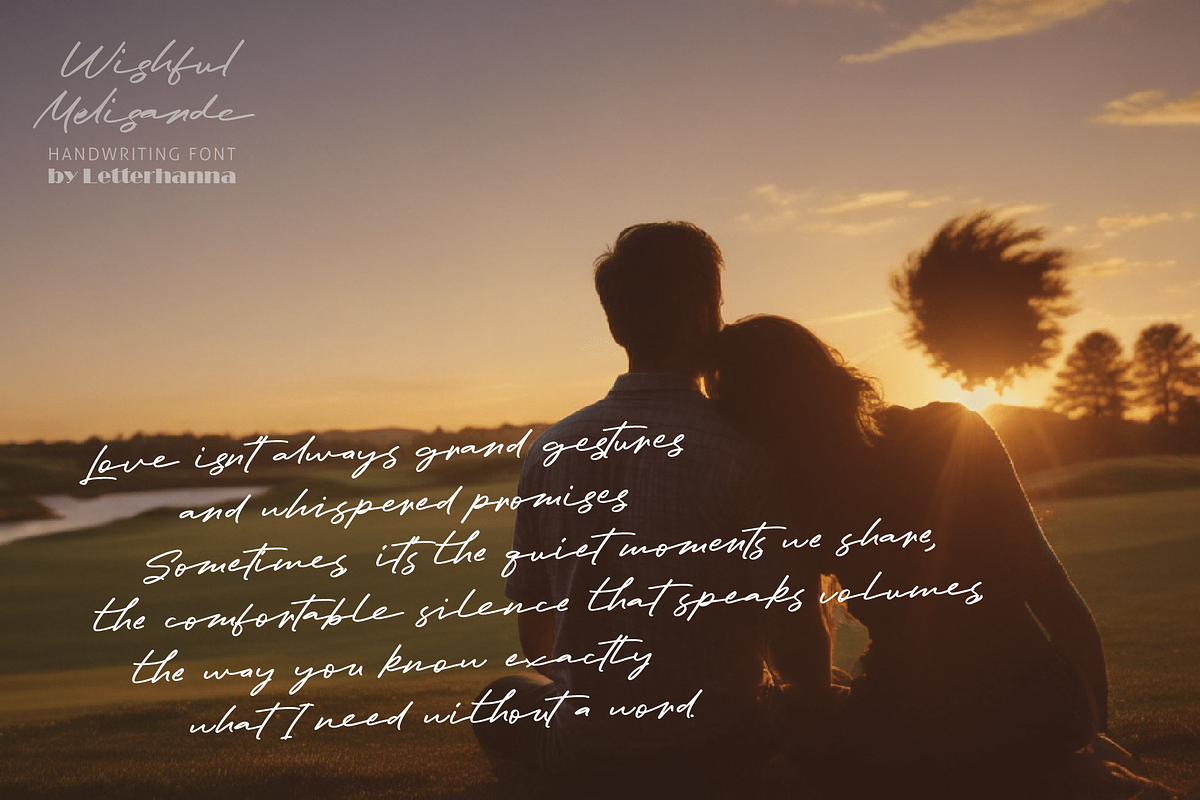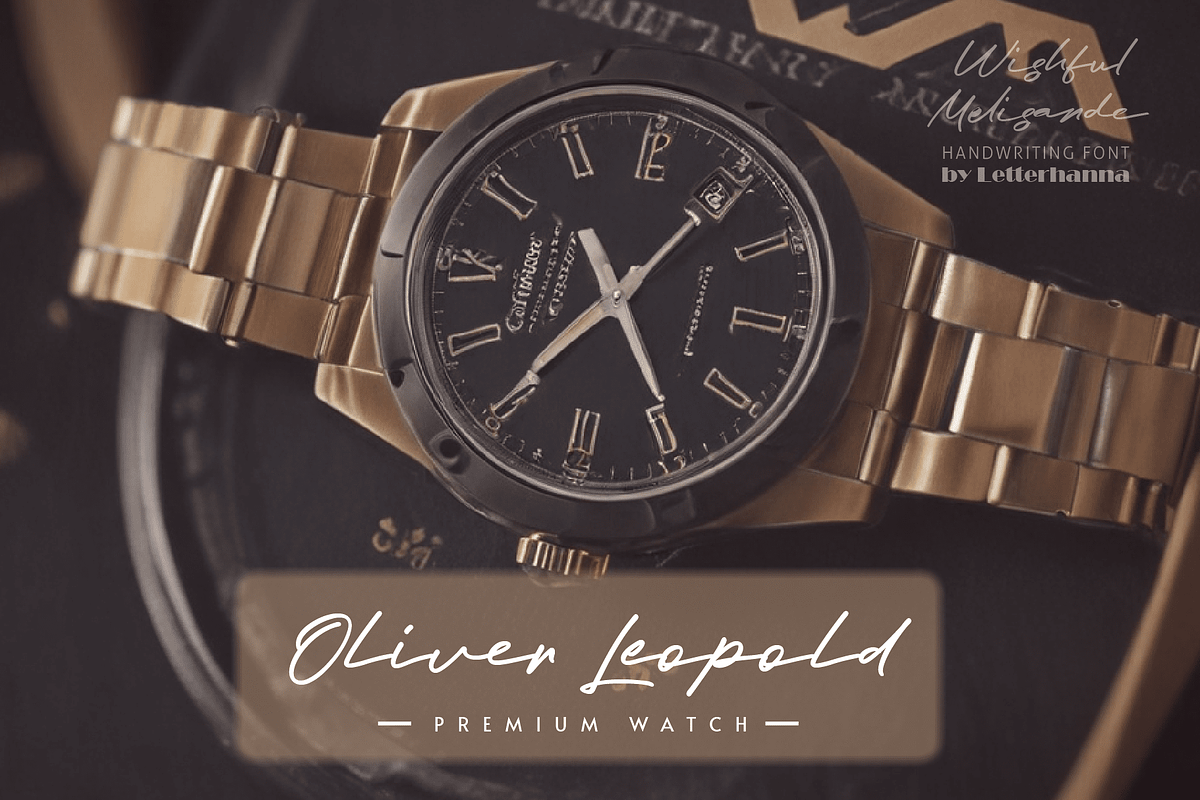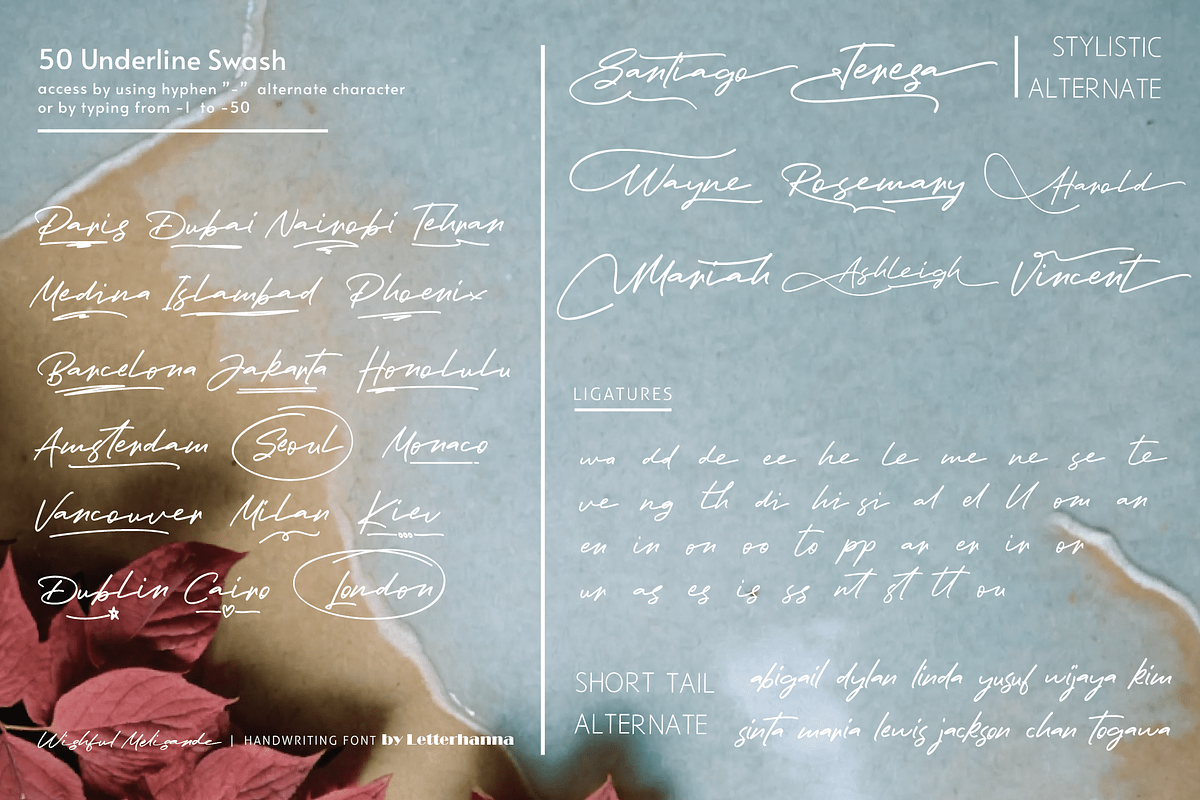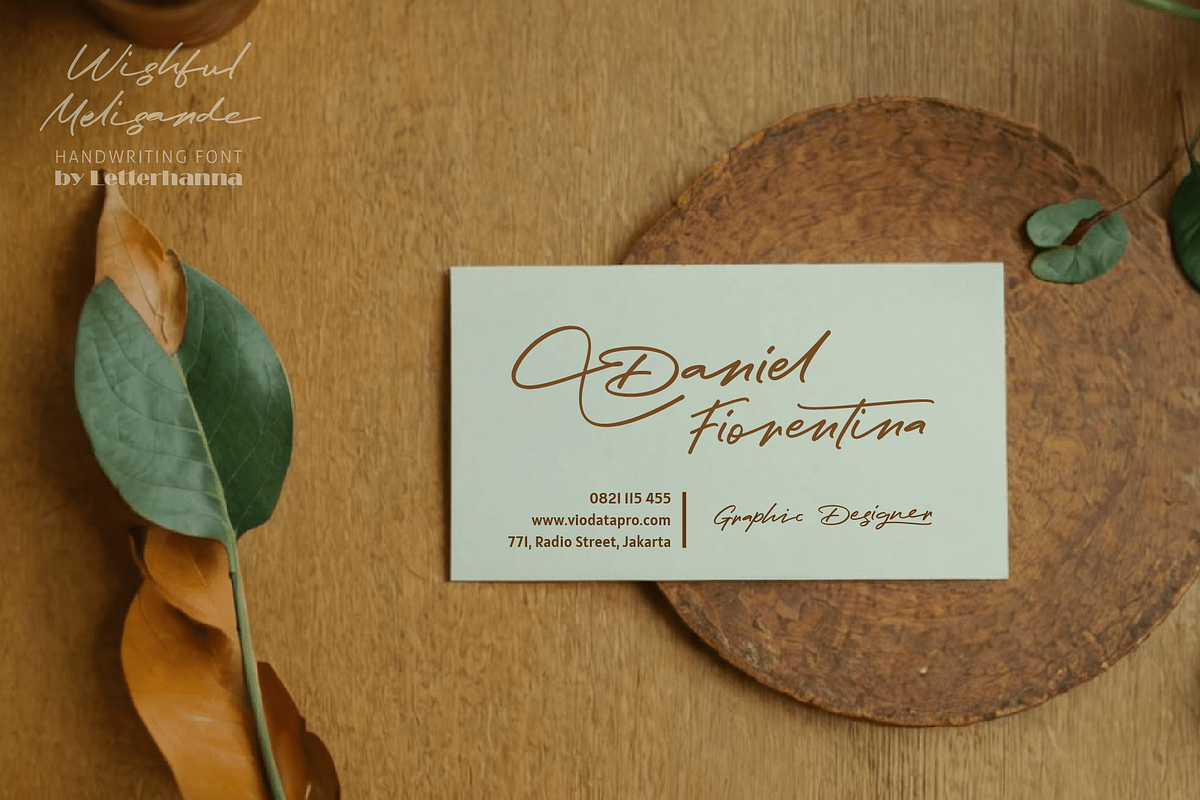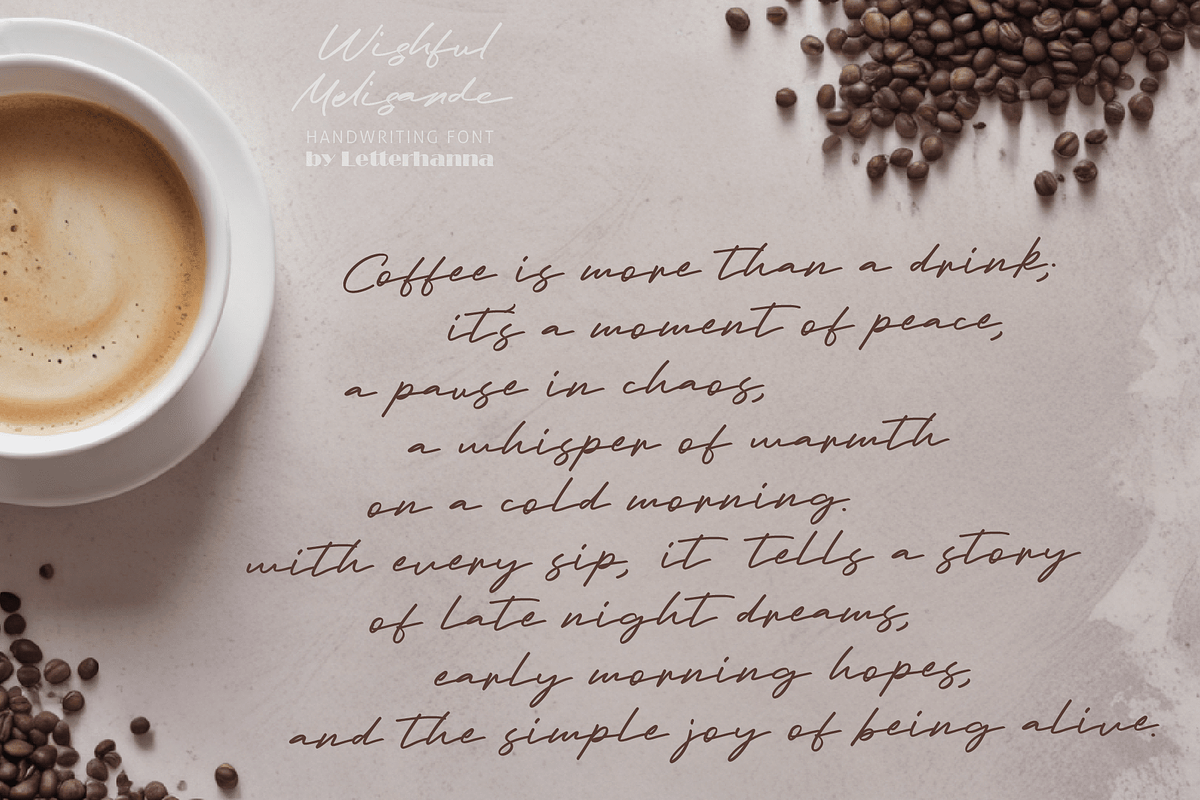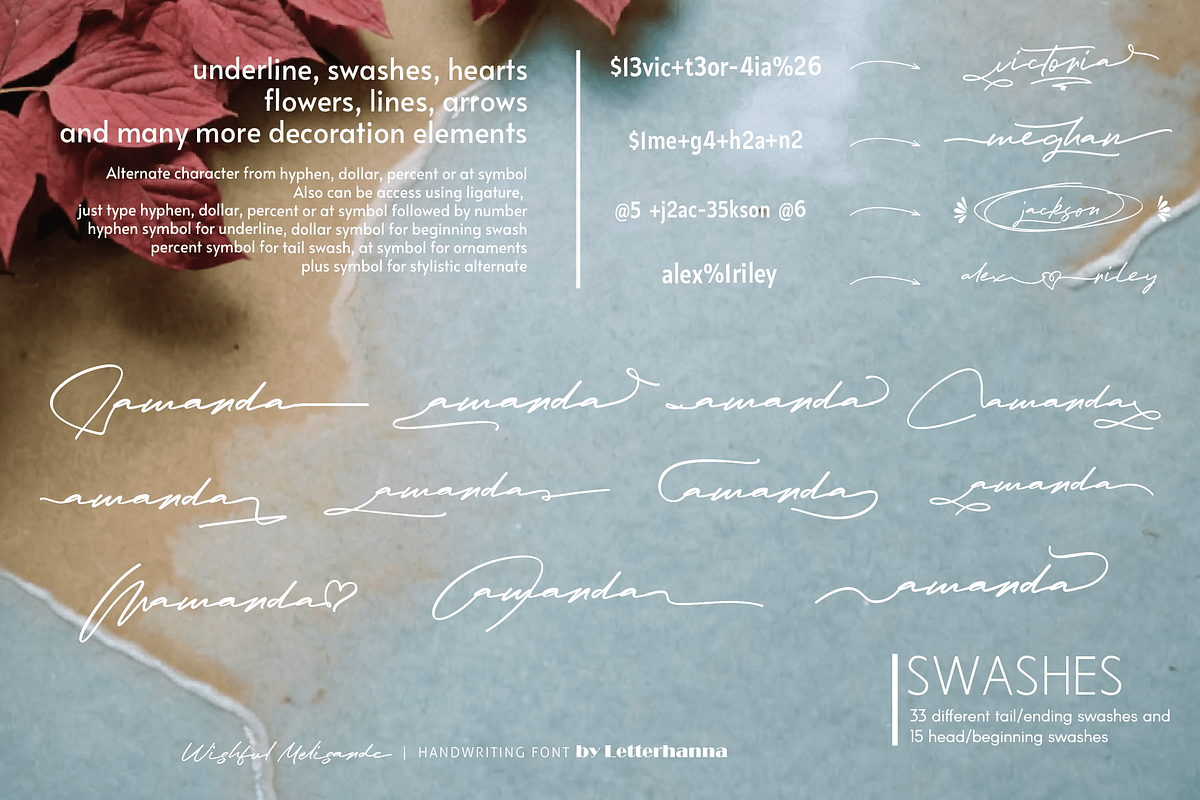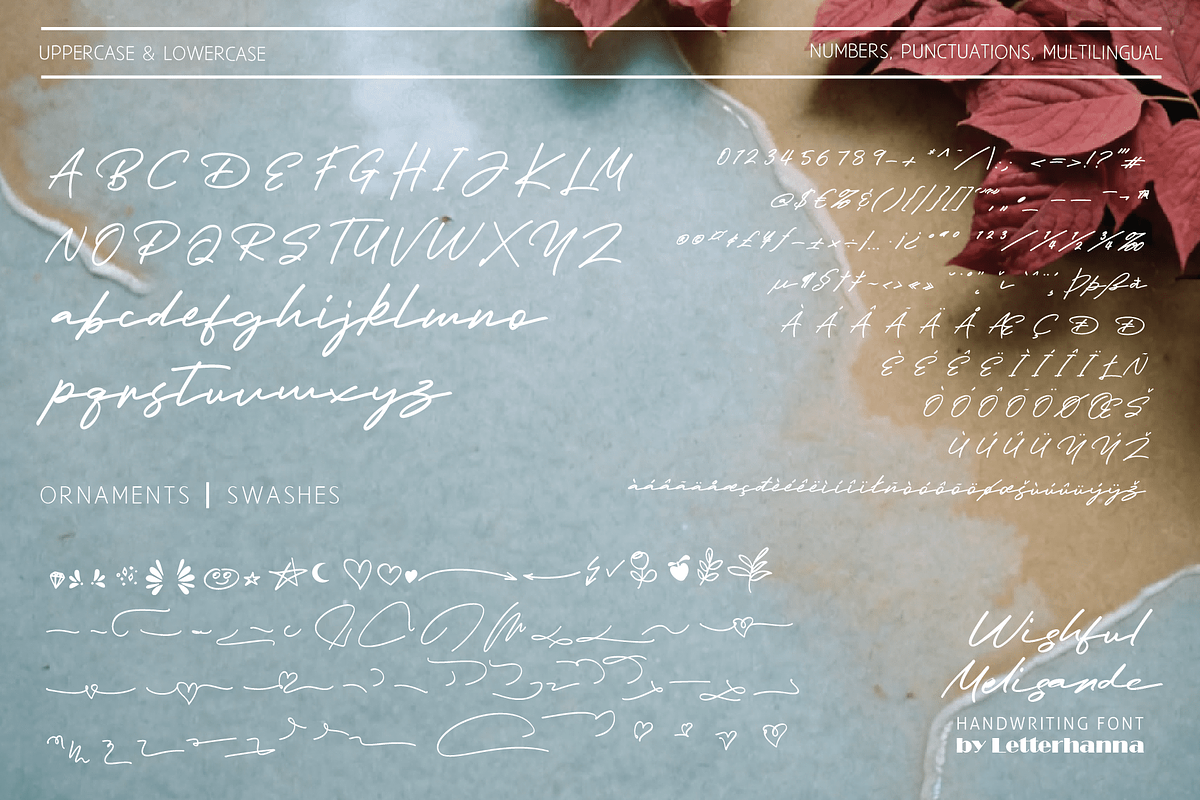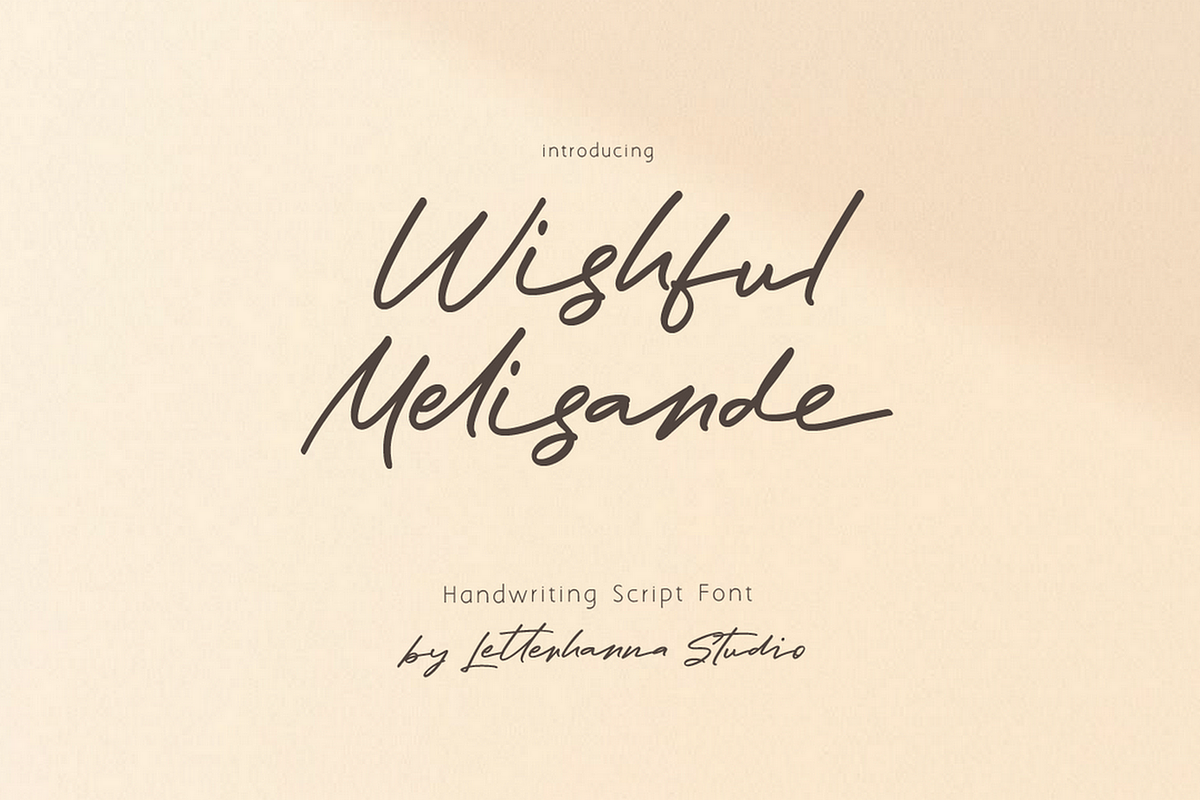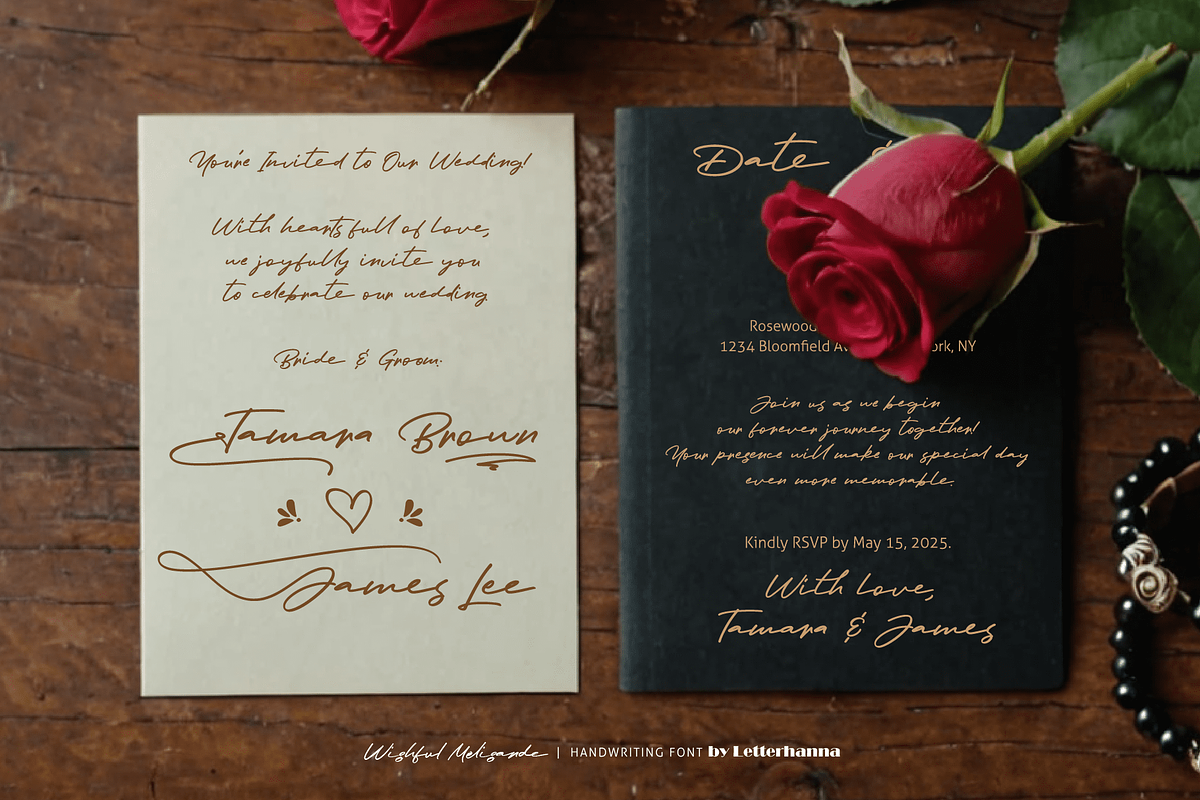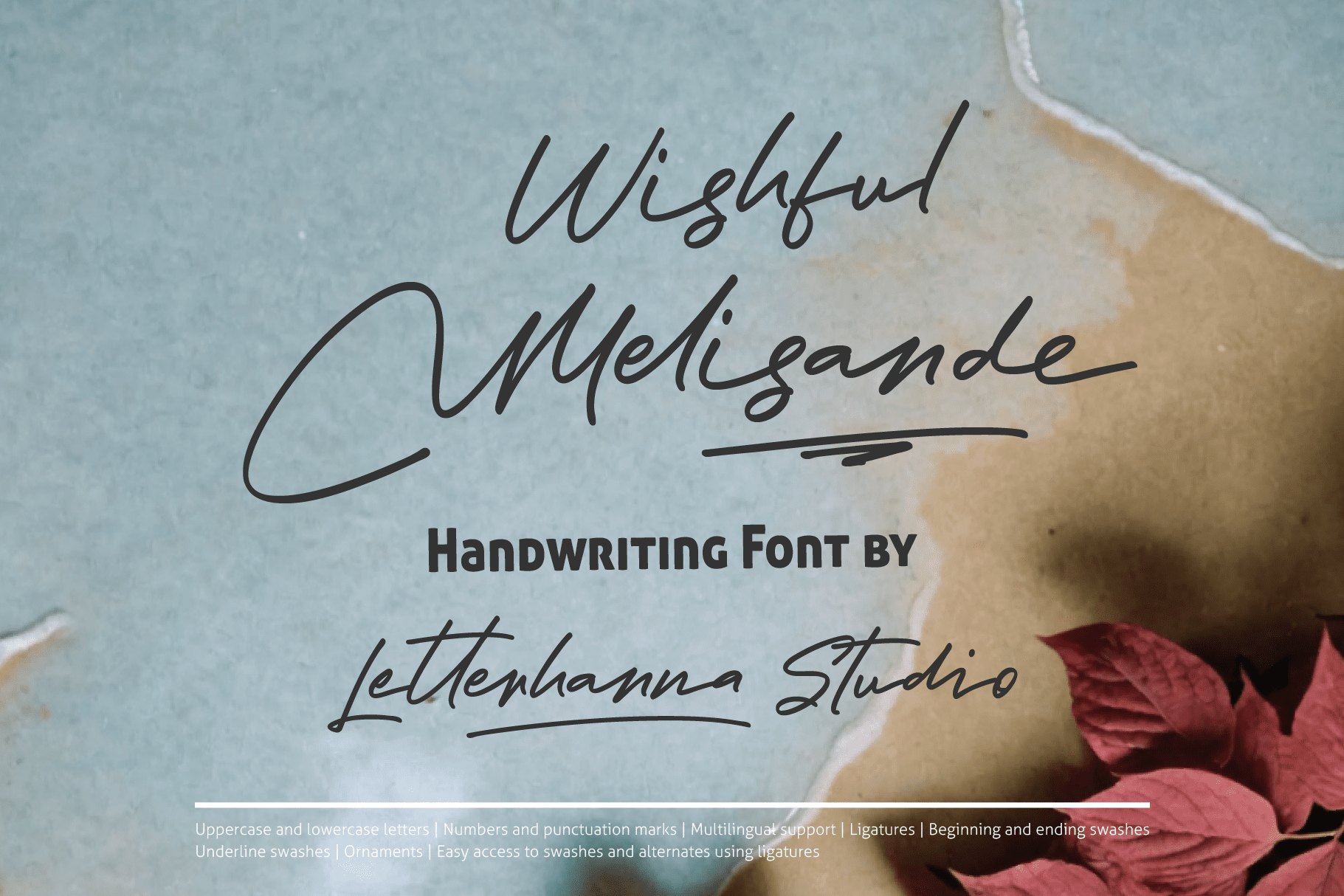
Wishful Melisande Handwriting Font
Introducing Wishful Melisande, a graceful and enchanting handwriting script font that captures the beauty of fluid strokes and delicate curves. Designed for those who appreciate elegance, this font blends natural hand-drawn charm with a touch of sophistication, making it perfect for branding, invitations, and artistic projects.
Easy Access to Glyphs and Swashes
Gain easy access to all alternate glyphs, swashes, ornaments, and underlines by simply using ligatures. You can try them out yourself in the font preview tool on our website, letterhanna.com
Accessing Swashes and Ornaments Underline Swashes: Use a hyphen symbol "-" followed by a number between 1 and 50. For example, type "-3", "-22", or "-17" to get various underline swashes. Head/Beginning Swashes: Use a dollar sign "$" followed by a number between 1 and 15. For example, type "$2" or "$8" to get different head/beginning swashes. Tail/Ending Swashes: Use a percent sign "%" followed by a number between 1 and 33. For example, type "%3" or "%15" to get various tail/ending swashes. Ornaments: Use an "at" symbol "@" followed by a number between 1 and 21. For example, type "@4" or "@13" to get different ornament.
PUA Encoding for Ease of Use, which means you can access all the glyphs and swashes with ease!
Font Features Uppercase and lowercase letters Numbers and punctuation marks Multilingual support Ligatures Beginning and ending swashes Underline swashes Ornaments Easy access to swashes using ligatures